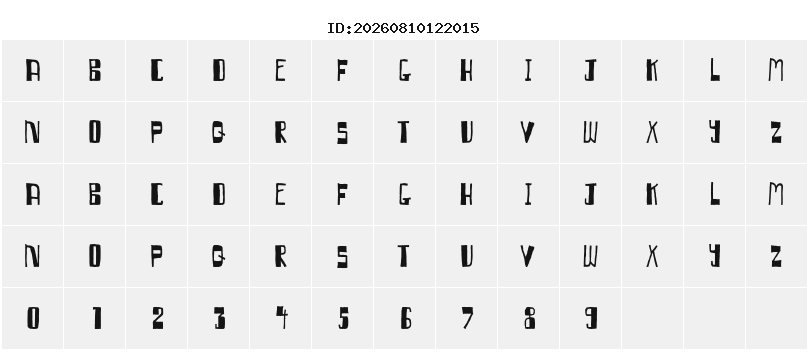
• Font Name: Qumbazonki
• Designer: Joanne Taylor
About Qumbazonki.otf
Qumbazonki.otf is a modern, elegant sans-serif font designed for ultimate readability and visual harmony. Perfect for branding, headlines, web design, and print materials.